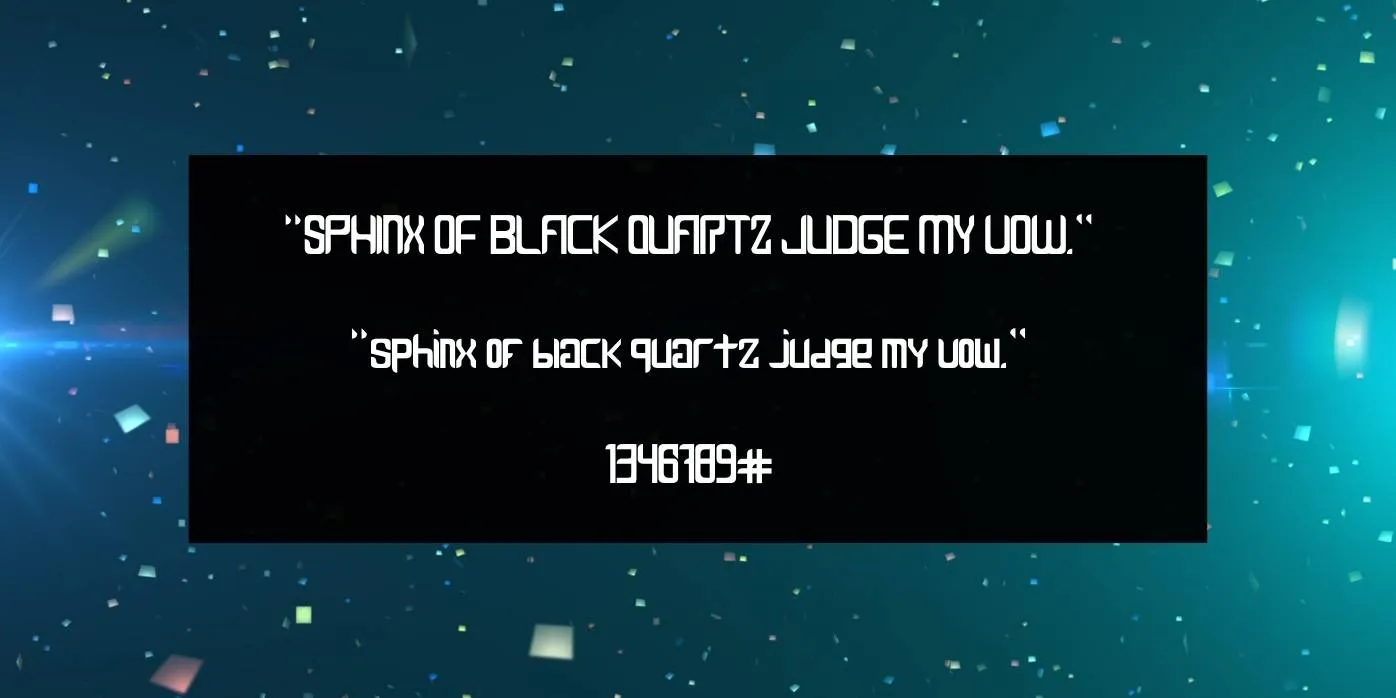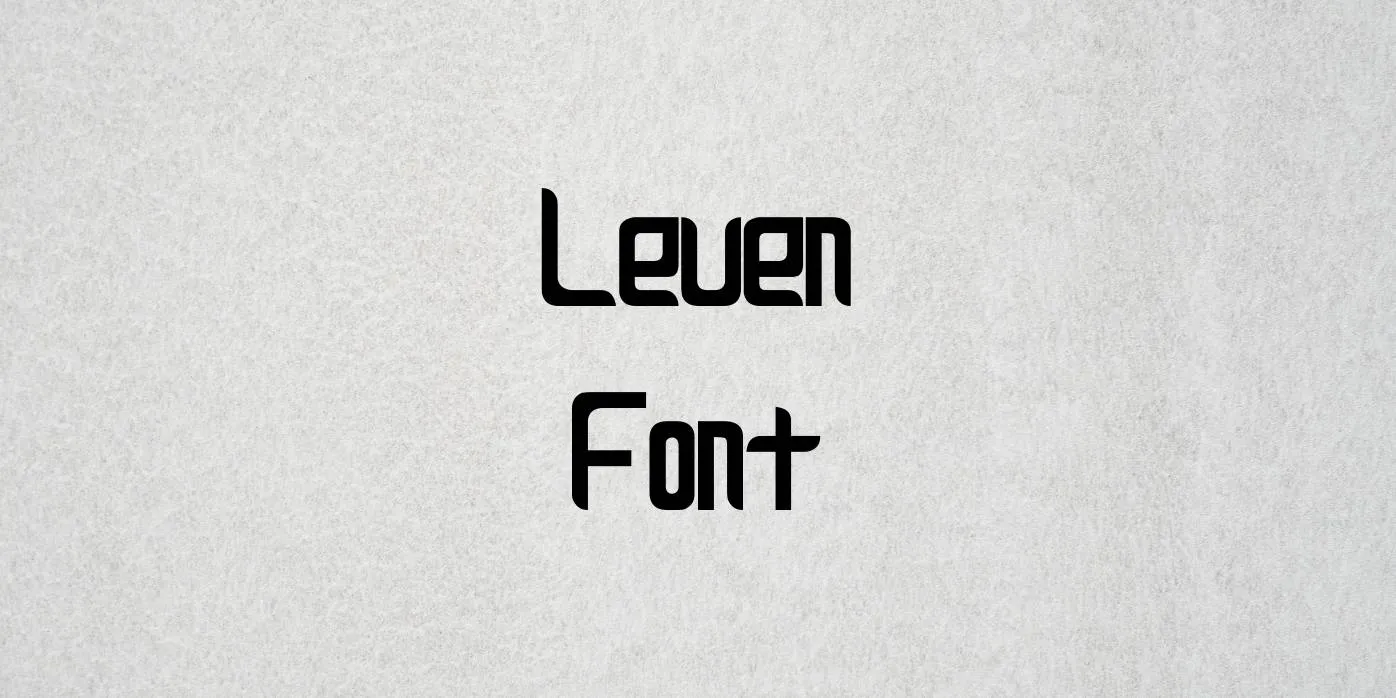
Leven Font
Leven Font is a fancy typeface created in 2013 by Charles Daoud. It is named after the Lebanese city of Lebanon, where Daoud was born and raised. The font is based on the Arabic alphabet and includes a Latin counterpart. The Leven Font project began as an effort to create a typeface that would be suitable for both Arabic and Latin-based languages.
Daoud drew inspiration from a variety of sources, including Lebanese street signs and Arabic calligraphy. This font style is also generated through an online font generator tool.s The result is a stylish and modern typeface that is both functional and aesthetically pleasing. It is also known for its immense language support same as the athelas font and it can support many different international alphabets. The Font has been used by a number of high-profile publications, including The Guardian, Al Jazeera, and Bloomberg Businessweek.